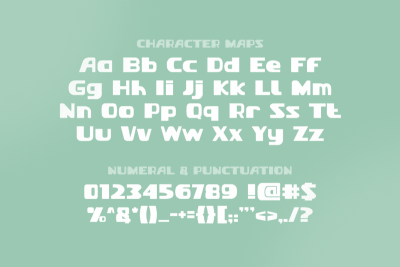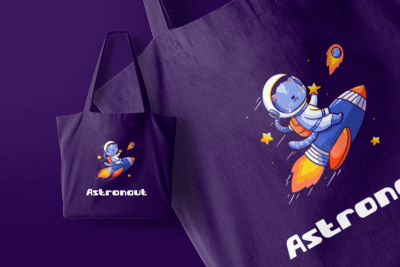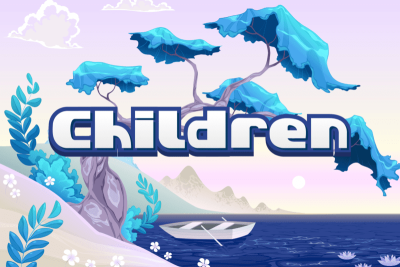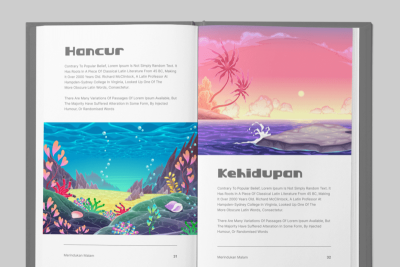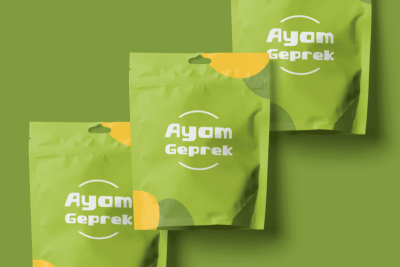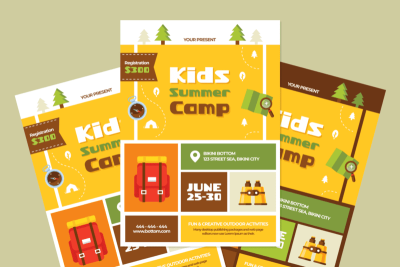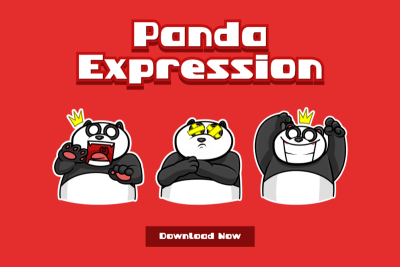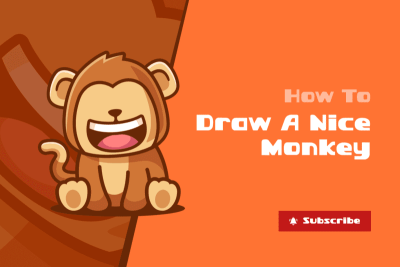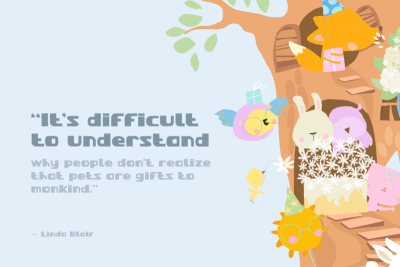
Kids Font Nomaden is a playful and cheerful typeface that adds creativity and charm to your projects. Its soft curves and whimsical characters create a lighthearted and inviting look, perfect for designs that aim to captivate childrenโs attention. The font is both charming and readable, making it an excellent choice for kid-friendly designs. Furthermore, colorful illustrations of animals and children enhance its appeal, giving your projects a lively and engaging touch.
Whether youโre designing educational materials, storybooks, or party decorations, Kids Font Nomaden is here to make your work stand out. The bold, approachable letters inspire positivity and creativity, adding warmth to your designs. Additionally, the fontโs versatility makes it suitable for a wide range of uses, from large titles to detailed text. It provides a professional yet playful solution for creating designs that resonate with younger audiences.
The joyful style of this font helps communicate ideas in a way that feels fun and approachable. It allows you to create projects that not only look great but also leave a lasting impression. Whether itโs for print or digital formats,ย Kids Font Nomaden guarantees that your message will come across as friendly and memorable.
Kids Font Nomaden Perfect For
Kids Font Nomaden is a great choice for designers, educators, and content creators working on child-centered projects. It is especially suited for:
- Teachers and Schools: Design colorful and engaging materials for classrooms, including worksheets, bulletin boards, and learning resources. The font helps to keep students interested and focused.
- Children’s Book Authors and Illustrators: Bring stories to life with a typeface that matches the whimsical world of childrenโs literature. It works beautifully with imaginative tales and vibrant illustrations.
- Party Planners and Event Organizers: Create unique invitations, banners, and decorations for kids’ birthdays, family gatherings, or school events. The font adds a playful and celebratory feel.
- Toy Brands and Businesses: Use it in packaging, branding, or advertisements targeted at children and families. The cheerful style ensures your products stand out on shelves or online.
- Content Creators and App Developers: Perfect for YouTube thumbnails, interactive apps, or social media posts aimed at kids. The font helps digital content look approachable and fun.
Additionally, this font is great for parents who want to create personalized items for their children, such as custom name tags, birthday cards, or DIY crafts. Its versatility makes it accessible to everyone, whether youโre a professional designer or just getting started.
In summary, Kids Font Nomaden combines charm, creativity, and flexibility. It is the ideal choice for anyone looking to craft designs with a sense of fun and imagination. Whether your goal is to educate, entertain, or celebrate, this font will ensure your projects leave a positive and lasting impact.